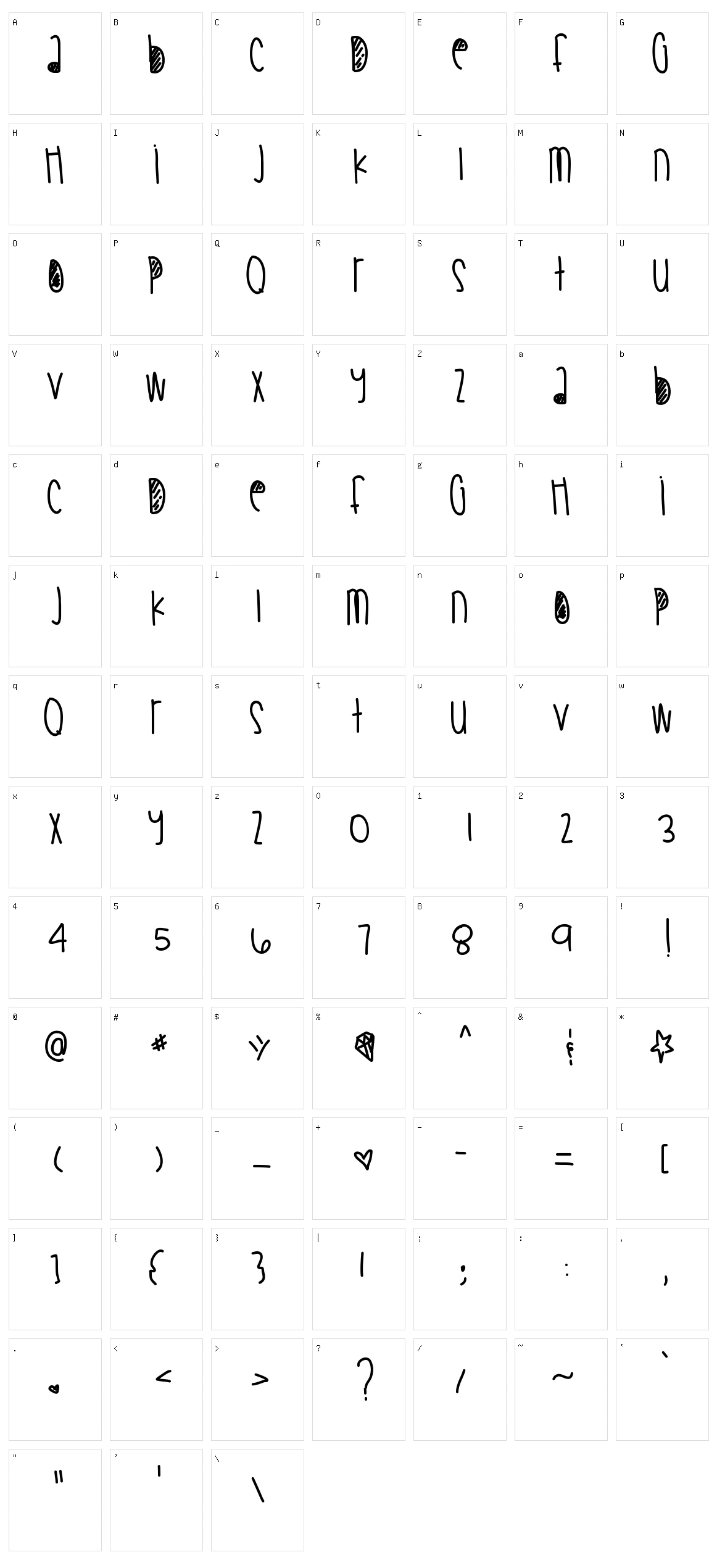
The free font Original Don Dada is carefully designed by Des Gomez, showcasing a thoughtful balance of creativity and usability and falls under the Script font style. When you download the ZIP file, it contains only 10.73 KB of font files, making it lightweight and quick to download. Please review the license details below to understand permitted usage and distribution rights. If license information is not available, we recommend using this font for personal projects only or contacting the author directly for commercial usage permissions.